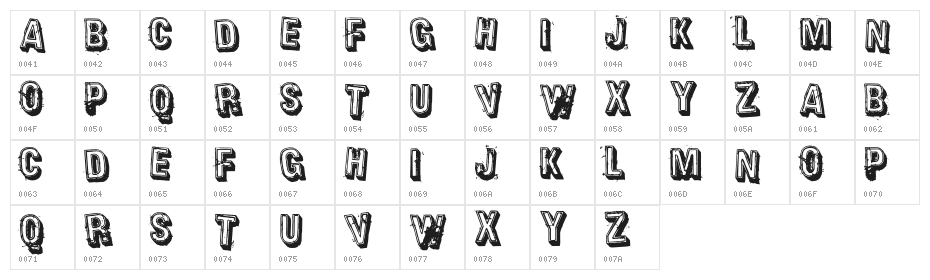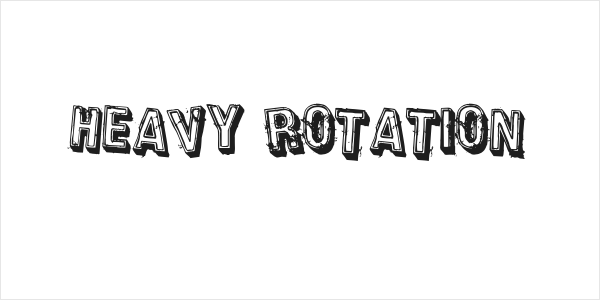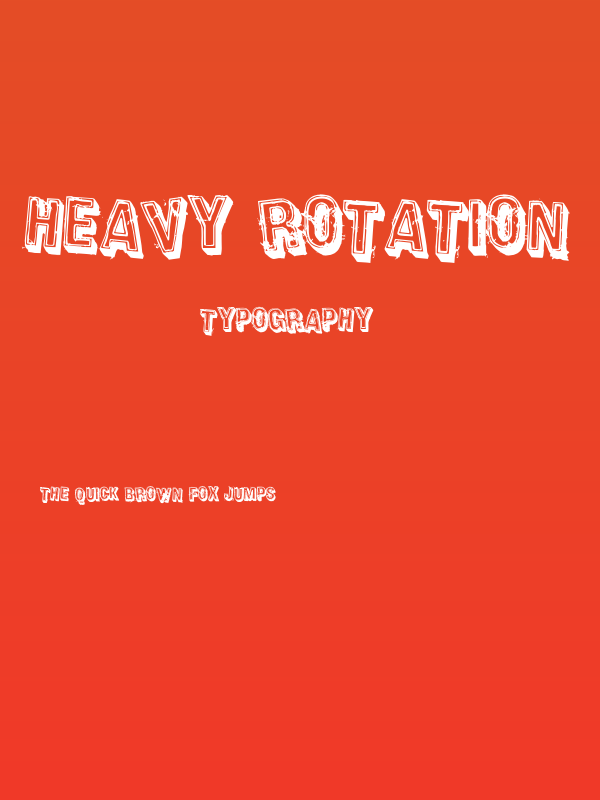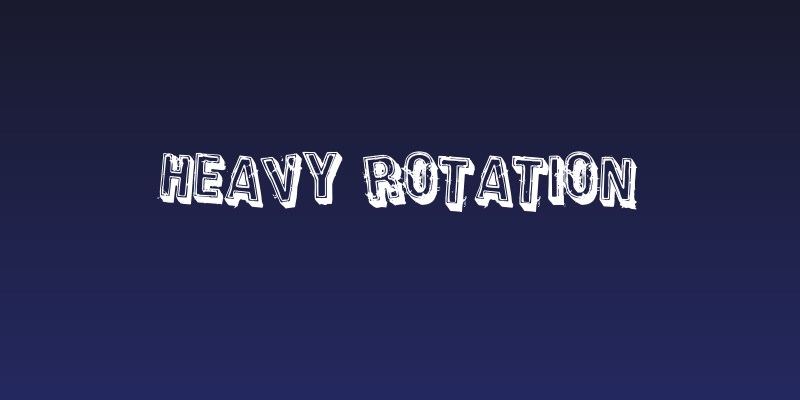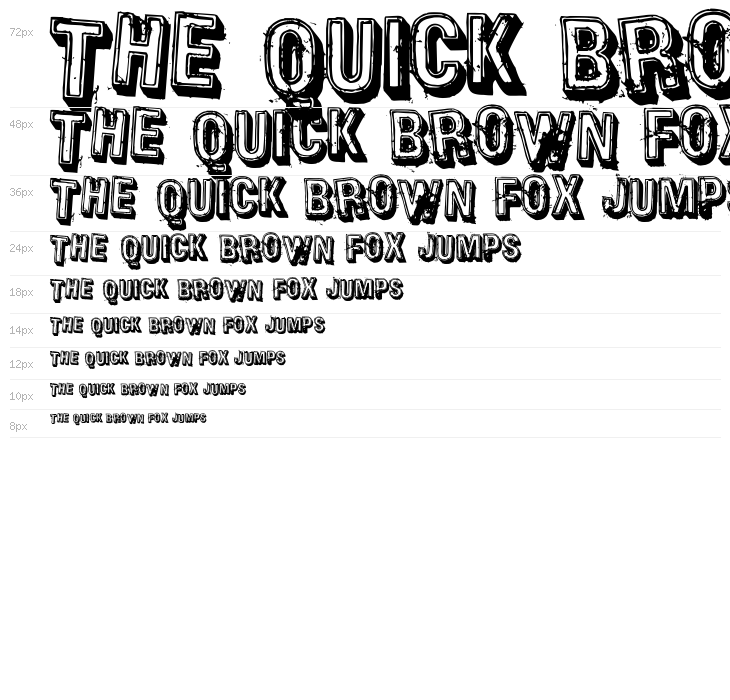
Heavy Rotation Font
Heavy Rotation Description
This font features a bold, distressed style with a grunge effect, giving it a rugged and edgy appearance. The letters are uppercase and have a thick, blocky structure with uneven edges, creating a sense of movement and energy. The texture within each character adds depth and a worn-out look, reminiscent of street art or graffiti. This font is ideal for projects that require a strong visual impact and a rebellious or urban vibe. Its unique style makes it stand out, perfect for capturing attention in designs that need a bold statement.
Use CaseHeadlines, Logos
Proposed ProjectsPosters, album covers, streetwear branding, event flyers, and urban-themed designs.